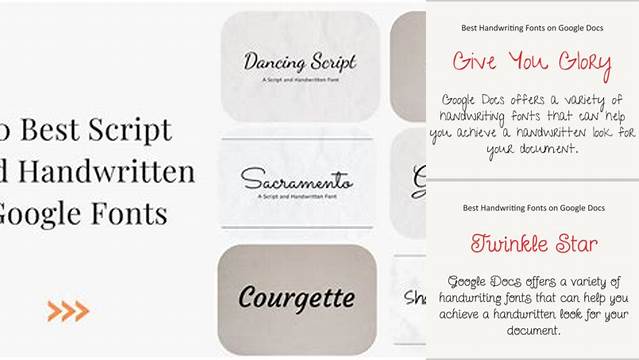
Best Handwriting Fonts For Google Docs: Ultimate Guide
Hey guys! Ever wanted to add a personal touch to your Google Docs? One of the easiest ways to do that is by using handwriting fonts. They can make your documents feel more authentic, creative, and less like they came straight out of a corporate office. But with so many options out there, how do you choose the best handwriting fonts on Google Docs? Don't worry; I’ve got you covered! In this guide, we’ll dive deep into the world of handwriting fonts, exploring everything from classic choices to modern, stylish options, and even how to install them if they're not already in Google Docs. Let’s get started!
1. Why Use Handwriting Fonts in Google Docs?
So, why bother with handwriting fonts anyway? Well, handwriting fonts can bring a unique flair to your documents. Imagine sending a thank-you note, a resume, or even a creative story typed in a font that mimics actual handwriting. It adds a personal touch that standard fonts like Arial or Times New Roman simply can't match. This is especially useful for invitations, cards, and other documents where you want to convey warmth and authenticity. Plus, using handwriting fonts can help your document stand out and grab the reader's attention, making it more memorable. For instance, if you’re a teacher, using a fun handwriting font on a worksheet can make the assignment feel less intimidating and more engaging for your students.
2. Top Classic Handwriting Fonts for Google Docs
When it comes to classic handwriting fonts, there are a few standouts that never go out of style. Think about fonts that mimic traditional cursive or penmanship. These fonts are generally easy to read and have a timeless appeal. Some popular options include “ школьные годы чудесные” and “Patrick Hand”. These fonts offer a balance between readability and a handwritten feel, making them perfect for professional documents where you still want to add a touch of personality. Classic handwriting fonts are also great for creating a nostalgic or vintage vibe in your projects. For example, if you’re designing a historical document or writing a story set in the past, using a classic handwriting font can enhance the overall effect and immerse your reader in the setting. Plus, these fonts often come with stylistic alternates and ligatures that add to their authenticity, making them look even more like real handwriting.
3. Modern and Stylish Handwriting Fonts
If you're looking for something a bit more contemporary, there are tons of modern and stylish handwriting fonts to choose from. These fonts often feature unique letterforms, playful swashes, and a more relaxed, casual feel. Options like “Coming Soon” and “Rock Salt” offer a fresh take on handwriting. These fonts are perfect for adding a creative touch to your blog posts, social media graphics, or marketing materials. Imagine designing an Instagram post with a catchy quote written in a trendy handwriting font. It’s sure to catch the eye and make your content more engaging. Modern handwriting fonts are also great for personal projects like journaling, scrapbooking, or creating personalized gifts. They allow you to express your individuality and add a unique touch to everything you create. Just remember to choose a font that’s still readable, even if it’s super stylish!
4. Best Cursive Handwriting Fonts for Formal Use
For more formal occasions, you might want to consider cursive handwriting fonts. These fonts emulate elegant, flowing script and can add a touch of sophistication to your documents. Fonts like “Great Vibes” or “Herr Von Muellerhoff” are excellent choices for wedding invitations, certificates, or formal letters. Using cursive handwriting fonts can convey a sense of tradition and elegance, making your document feel more special and refined. When selecting a cursive font, make sure it’s still legible and not overly ornate. You want to strike a balance between beauty and readability. Also, consider the overall tone of your document. A very formal cursive font might not be appropriate for a casual thank-you note, but it would be perfect for a formal invitation. Experiment with different options to find the perfect fit for your needs.
5. Fun and Playful Handwriting Fonts for Kids
If you’re working on projects for kids, you’ll want to use fun and playful handwriting fonts that capture their attention and spark their imagination. These fonts often feature whimsical letterforms, bright colors, and a generally lighthearted feel. Think about fonts that look like they were written by a child, with slightly uneven lines and quirky details. Options like “ школьные годы чудесные” or “Permanent Marker” can add a touch of fun to worksheets, storybooks, and party invitations. When choosing playful handwriting fonts, make sure they’re easy for kids to read. Avoid fonts that are too complicated or have too many decorative elements. The goal is to make the text accessible and engaging for young readers. Also, consider using these fonts in combination with colorful graphics and illustrations to create a visually appealing and stimulating learning environment.
7. Pairing Handwriting Fonts with Other Fonts
To create a visually appealing document, it’s important to pair your handwriting fonts with other fonts that complement them. A good rule of thumb is to use handwriting fonts for headings or short phrases, and then use a more readable font like Arial or Calibri for the body text. This helps to ensure that your document is both visually interesting and easy to read. When pairing fonts, consider the overall tone and style of your document. For example, if you’re using a modern handwriting font, you might want to pair it with a clean, sans-serif font. If you’re using a classic handwriting font, you might want to pair it with a traditional serif font. Experiment with different combinations to find what works best for you. There are also many online resources and font pairing tools that can help you find complementary fonts. Don’t be afraid to try new things and break the rules – the most important thing is to create a document that you’re happy with.
8. Using Handwriting Fonts for Resumes and Cover Letters
While handwriting fonts can add a personal touch to your documents, it’s important to use them judiciously when it comes to professional documents like resumes and cover letters. In general, it’s best to avoid using handwriting fonts for the main body of your resume or cover letter, as they can be difficult to read and may not convey a professional image. However, you might consider using a subtle handwriting font for your name or contact information to add a touch of personality. If you do choose to use a handwriting font, make sure it’s clean, legible, and not too distracting. You want to make a good impression on potential employers, so it’s important to choose a font that reflects your professionalism and attention to detail. When in doubt, it’s always best to stick with a classic, professional font like Arial, Calibri, or Times New Roman.
9. Creating Invitations with Handwriting Fonts
Handwriting fonts are perfect for creating invitations that feel personal and unique. Whether you’re planning a wedding, a birthday party, or a casual get-together, using a handwriting font can add a special touch to your invitations. When designing invitations, consider the overall theme and style of your event. A formal event might call for an elegant cursive font, while a casual event might be better suited to a fun and playful font. Don’t be afraid to experiment with different fonts and layouts to find the perfect combination. You can also use handwriting fonts in combination with graphics and illustrations to create a visually appealing invitation. Just remember to keep the text legible and easy to read, so your guests can easily find the important details like the date, time, and location of the event. There are many online resources and templates that can help you design beautiful invitations with handwriting fonts.
10. Designing Cards with Handwriting Fonts
Similar to invitations, handwriting fonts are also great for designing cards for all occasions. Whether you’re sending a thank-you note, a birthday card, or a holiday greeting, using a handwriting font can make your card feel more personal and heartfelt. When designing cards, consider the recipient and the message you want to convey. A heartfelt message might be best expressed with a warm and elegant cursive font, while a fun and playful message might be better suited to a whimsical font. You can also use handwriting fonts in combination with photos, illustrations, and other design elements to create a unique and memorable card. Just remember to keep the text legible and easy to read, so your recipient can easily understand your message. There are many online resources and templates that can help you design beautiful cards with handwriting fonts.
11. The Impact of Handwriting Fonts on Readability
Readability is a crucial factor to consider when choosing handwriting fonts, especially for longer documents or content intended for a wide audience. While handwriting fonts can add personality and flair, they may not always be as easy to read as standard fonts like Arial or Times New Roman. Some handwriting fonts feature intricate letterforms or unconventional spacing, which can make them challenging for some readers to decipher. To ensure readability, it’s best to use handwriting fonts sparingly, such as for headings or short phrases, and to pair them with a more legible font for the main body text. It’s also important to choose a handwriting font that is clear and well-defined, with consistent letterforms and adequate spacing. Before committing to a particular font, it’s a good idea to test it with a sample audience to get feedback on its readability. Ultimately, the goal is to strike a balance between aesthetics and accessibility, creating a document that is both visually appealing and easy to understand.
12. Free vs. Premium Handwriting Fonts
When searching for handwriting fonts for Google Docs, you’ll encounter both free and premium options. Free handwriting fonts can be a great way to add personality to your documents without breaking the bank. Many websites offer a wide selection of free fonts that you can download and install on your computer. However, it’s important to be aware of the potential limitations of free fonts. Some free fonts may have limited character sets, meaning they may not include all the letters, numbers, and symbols you need. Additionally, the quality of free fonts can vary widely, with some fonts being poorly designed or lacking essential features. Premium handwriting fonts, on the other hand, typically offer higher quality and more comprehensive features. Premium fonts are often designed by professional typographers and come with extensive character sets, stylistic alternates, and ligatures. While premium fonts may cost money, they can be a worthwhile investment if you plan to use handwriting fonts frequently or for professional projects. Ultimately, the choice between free and premium fonts depends on your budget and your specific needs.
13. How to Choose the Right Handwriting Font for Your Project
Selecting the right handwriting font for your project involves considering several factors to ensure the font aligns with your message and target audience. First, think about the overall tone and style of your project. Is it formal or casual, serious or playful? The handwriting font should reflect the mood you want to convey. For example, a formal wedding invitation might call for an elegant cursive font, while a children's book would benefit from a fun, whimsical font. Second, consider the readability of the font. While handwriting fonts can add personality, it's crucial to choose one that is easy to read, especially for longer documents or content intended for a wide audience. Avoid fonts with overly intricate letterforms or unconventional spacing. Third, think about the context in which the font will be used. Will it be used for headings, body text, or both? A bold handwriting font might work well for headings but be too distracting for body text. Finally, experiment with different fonts and combinations to find the perfect fit for your project. Don't be afraid to try new things and break the rules, but always prioritize readability and consistency.
14. Combining Handwriting Fonts with Images and Graphics
Combining handwriting fonts with images and graphics can create visually appealing and engaging documents. When incorporating images and graphics, it's important to choose elements that complement the handwriting font and enhance the overall message. For example, if you're using a vintage-style handwriting font, you might pair it with old-fashioned illustrations or sepia-toned photos. If you're using a modern handwriting font, you might opt for clean, minimalist graphics or vibrant, contemporary images. When arranging the text and images, pay attention to the layout and composition. Make sure the text is legible and doesn't compete with the images for attention. Use whitespace effectively to create a balanced and harmonious design. Experiment with different placements and sizes to find the most visually appealing arrangement. Remember to use high-quality images and graphics that are relevant to your message and target audience. By carefully combining handwriting fonts with images and graphics, you can create documents that are both visually stunning and highly effective.
15. The Psychology of Handwriting Fonts
Handwriting fonts can evoke a range of emotions and associations, influencing how your message is perceived. Understanding the psychology of handwriting fonts can help you choose the right font to connect with your audience and achieve your communication goals. In general, handwriting fonts are associated with warmth, authenticity, and creativity. They can make your documents feel more personal and approachable, creating a sense of connection with the reader. However, different styles of handwriting fonts can evoke different emotions. For example, elegant cursive fonts can convey sophistication and refinement, while playful, whimsical fonts can evoke joy and excitement. The choice of handwriting font can also influence perceptions of your brand or organization. A professional, well-designed handwriting font can enhance your brand image, while a poorly chosen font can detract from it. When selecting a handwriting font, consider the emotions you want to evoke and the message you want to convey. By understanding the psychology of handwriting fonts, you can create documents that resonate with your audience and achieve your desired impact.
16. Handwriting Fonts for Branding
Using handwriting fonts in your branding can add a unique and personal touch to your brand identity. A well-chosen handwriting font can help your brand stand out from the competition and create a memorable impression on your target audience. When selecting a handwriting font for your branding, it's important to consider your brand's personality and values. Is your brand playful and whimsical, or sophisticated and elegant? The handwriting font should reflect the essence of your brand. You'll also want to consider the readability and versatility of the font. Will it work well across different media, such as your website, social media profiles, and marketing materials? Will it be legible in both large and small sizes? It's often a good idea to use a handwriting font in combination with a more traditional font for your logo and other branding elements. This can help to balance the personal touch of the handwriting font with the professionalism and readability of a more standard font. By carefully selecting and using handwriting fonts in your branding, you can create a unique and memorable brand identity that resonates with your target audience.
17. How to Ensure Your Handwriting Font is Legible
Ensuring your handwriting font is legible is crucial for effective communication. While handwriting fonts can add a personal touch, they can also be more difficult to read than standard fonts if not chosen carefully. Here are some tips to ensure your handwriting font is legible: Choose a font with clear and well-defined letterforms. Avoid fonts with overly intricate or stylized designs that can make the letters difficult to distinguish. Consider the spacing between letters and words. Adequate spacing can improve readability, while cramped spacing can make the text look cluttered and difficult to follow. Use a large enough font size. Smaller font sizes can make handwriting fonts particularly challenging to read, so it's best to use a larger font size than you would with a standard font. Pair your handwriting font with a legible font for the body text. This can help to improve the overall readability of your document, especially if the handwriting font is used for headings or short phrases. Test your font with a sample audience. Ask people to read a sample of text in the handwriting font and provide feedback on its readability. By following these tips, you can ensure that your handwriting font is both stylish and easy to read.
18. The Ethics of Using Free Handwriting Fonts
When using free handwriting fonts, it's important to consider the ethical implications of your font choice. While free fonts can be a great resource for adding personality to your documents, it's crucial to respect the rights of the font creators and adhere to the terms of the font licenses. Before using a free handwriting font, carefully review the font license to understand how you're allowed to use the font. Some free fonts may be free for personal use but require a commercial license for business or professional use. Other free fonts may have restrictions on how you can modify or distribute the font. It's also important to be aware of the potential risks associated with downloading free fonts from unknown sources. Some websites may offer free fonts that contain malware or viruses, which can harm your computer or compromise your data. To protect yourself, only download free fonts from reputable websites and scan the font files with antivirus software before installing them. By being mindful of the ethical considerations and taking appropriate precautions, you can enjoy the benefits of free handwriting fonts without infringing on the rights of the font creators or compromising your security.
19. Handwriting Fonts for Social Media Graphics
Handwriting fonts can be a fantastic way to add personality and flair to your social media graphics. Whether you're creating posts for Instagram, Facebook, or Twitter, using a handwriting font can help your content stand out and grab the attention of your followers. When choosing a handwriting font for your social media graphics, consider the overall tone and style of your brand. Is your brand playful and approachable, or sophisticated and professional? The handwriting font should reflect the essence of your brand. You'll also want to consider the readability of the font. Social media graphics are often viewed on small screens, so it's important to choose a handwriting font that is easy to read at smaller sizes. Use handwriting fonts sparingly, such as for headings, captions, or short quotes. Avoid using handwriting fonts for the main body of your text, as they can be difficult to read on social media. Experiment with different font colors, sizes, and placements to create visually appealing graphics that capture the attention of your followers. By using handwriting fonts strategically in your social media graphics, you can create content that is both engaging and on-brand.
20. Creating a Signature with a Handwriting Font
Creating a signature with a handwriting font is a great way to add a personal and professional touch to your emails, documents, and other communications. A well-designed signature can help you establish your brand identity and make a lasting impression on your recipients. When choosing a handwriting font for your signature, consider your personal style and the overall tone of your communications. Do you want your signature to be elegant and sophisticated, or casual and approachable? The handwriting font should reflect your personality and the message you want to convey. You'll also want to consider the readability of the font. Your signature should be easy to read, even at smaller sizes. Avoid fonts with overly intricate or stylized designs that can make the signature difficult to decipher. Keep your signature concise and professional. Include your name, title, and contact information, but avoid adding unnecessary details or graphics. Use a consistent font color and size throughout your signature to create a polished and professional look. By creating a signature with a handwriting font, you can add a personal touch to your communications and make a lasting impression on your recipients.
21. The Future of Handwriting Fonts in Digital Design
The future of handwriting fonts in digital design looks bright, with ongoing innovations and evolving trends shaping their role in visual communication. As technology advances, we can expect to see even more realistic and expressive handwriting fonts that capture the nuances of human handwriting. Designers are also exploring new ways to incorporate handwriting fonts into interactive and dynamic designs, creating engaging and personalized experiences for users. For example, we may see handwriting fonts used in virtual reality and augmented reality applications, allowing users to interact with digital content in a more natural and intuitive way. Another trend is the increasing use of handwriting fonts in branding and marketing, as companies seek to create a more authentic and human connection with their customers. We can also expect to see more tools and resources that make it easier for designers to create and customize handwriting fonts, empowering them to express their creativity and individuality. As handwriting fonts continue to evolve and adapt to the changing landscape of digital design, they will remain a valuable tool for creating compelling and memorable visual experiences.
22. Common Mistakes to Avoid When Using Handwriting Fonts
Using handwriting fonts effectively requires careful consideration and attention to detail. Here are some common mistakes to avoid when using handwriting fonts in your designs: Overusing handwriting fonts. While handwriting fonts can add personality and flair, using them excessively can make your design look cluttered and unprofessional. Use handwriting fonts sparingly, such as for headings or short phrases. Choosing a handwriting font that is difficult to read. Readability is crucial for effective communication, so it's important to choose a handwriting font that is easy to decipher. Avoid fonts with overly intricate or stylized designs that can make the text difficult to follow. Using a handwriting font that doesn't match the tone of your design. The handwriting font should reflect the overall mood and style of your project. Using too many different fonts in one design. Using too many fonts can create a chaotic and unprofessional look. It's best to stick to a limited palette of fonts that complement each other. Ignoring the font license. Before using a handwriting font, make sure you understand the terms of the font license. Some fonts may be free for personal use but require a commercial license for business use. By avoiding these common mistakes, you can use handwriting fonts effectively to enhance your designs and communicate your message with clarity and impact.
23. Accessibility Considerations for Handwriting Fonts
When using handwriting fonts, it's important to consider accessibility to ensure that your content is usable by people with disabilities. While handwriting fonts can add a unique touch to your design, they may not be accessible to everyone. Here are some accessibility considerations to keep in mind: Use handwriting fonts sparingly. Handwriting fonts can be difficult to read for people with visual impairments or learning disabilities, so it's best to use them sparingly. Provide alternative text for images containing handwriting fonts. Alternative text allows screen readers to describe the image to visually impaired users. Ensure sufficient contrast between the text and background. Low contrast can make it difficult for people with visual impairments to read the text. Use a large enough font size. Smaller font sizes can make handwriting fonts particularly challenging to read. Provide a clear and simple design. Avoid cluttered layouts or distracting graphics that can make it difficult for people with cognitive disabilities to focus on the content. Test your design with accessibility tools. There are many accessibility tools available that can help you identify and fix accessibility issues in your design. By considering accessibility when using handwriting fonts, you can create content that is inclusive and usable by everyone.
24. Finding Inspiration for Using Handwriting Fonts
Finding inspiration for using handwriting fonts can spark creativity and help you discover new and innovative ways to incorporate them into your designs. Here are some sources of inspiration to explore: Browse online design galleries and portfolios. Websites like Behance, Dribbble, and Awwwards showcase a wide range of design projects that use handwriting fonts in creative ways. Follow designers and typographers on social media. Platforms like Instagram and Twitter are great for discovering new handwriting fonts and seeing how designers are using them in their work. Look at vintage advertisements and signage. Vintage designs often feature handwriting fonts and hand-lettered elements that can provide inspiration for your own projects. Visit museums and art galleries. Museums and art galleries often showcase examples of calligraphy, typography, and hand-lettering that can inspire your use of handwriting fonts. Experiment with different font pairings and design styles. Try combining handwriting fonts with different fonts, colors, and layouts to create unique and visually appealing designs. By exploring these sources of inspiration, you can discover new and exciting ways to use handwriting fonts in your designs and create content that is both visually stunning and effective.
25. How to Create Your Own Handwriting Font
Creating your own handwriting font can be a rewarding and creative process that allows you to express your unique personality and style. Here are the basic steps involved in creating your own handwriting font: Gather your materials. You'll need a pen or marker, paper, and a scanner or digital camera. Create a character set. Write out each letter of the alphabet, both uppercase and lowercase, as well as numbers, punctuation marks, and any other symbols you want to include in your font. Scan or photograph your character set. Ensure that the images are clear and well-lit. Use font creation software. There are many font creation programs available, both free and paid, that can help you convert your images into a font file. Trace and digitize your characters. Use the font creation software to trace and digitize your handwritten characters. Adjust the spacing and kerning. Fine-tune the spacing between letters and words to ensure that your font is legible and visually appealing. Test your font. Test your font in different applications and with different font sizes to ensure that it works properly. By following these steps, you can create your own handwriting font that reflects your unique style and personality.
26. The Best Software for Working with Handwriting Fonts
When working with handwriting fonts, having the right software can make a significant difference in your design process. Here are some of the best software options for working with handwriting fonts: Adobe Photoshop. Photoshop is a powerful image editing software that allows you to manipulate and enhance handwriting fonts in your designs. Adobe Illustrator. Illustrator is a vector graphics editor that is ideal for creating logos, illustrations, and other graphics that incorporate handwriting fonts. Canva. Canva is a user-friendly design platform that offers a wide range of templates and tools for creating social media graphics, presentations, and other visual content with handwriting fonts. Procreate. Procreate is a digital painting app for iPad that allows you to create custom lettering and handwriting fonts using Apple Pencil. FontLab Studio. FontLab Studio is a professional font editor that provides advanced tools for creating and modifying handwriting fonts. By choosing the right software for your needs, you can streamline your design workflow and create stunning visuals with handwriting fonts.
27. Using Handwriting Fonts for Personal Projects
Handwriting fonts can add a personal and creative touch to a wide range of personal projects. Whether you're scrapbooking, journaling, or creating handmade gifts, using a handwriting font can make your projects more meaningful and memorable. Here are some ideas for using handwriting fonts in your personal projects: Create personalized cards and invitations. Use a handwriting font to add a personal touch to birthday cards, thank-you notes, or party invitations. Design custom stationery. Create your own personalized stationery with a handwriting font for your name and address. Make unique scrapbook layouts. Use handwriting fonts to add captions, titles, and journaling to your scrapbook pages. Create handmade gifts. Personalize gifts with a handwriting font to make them extra special. Design custom labels and stickers. Use handwriting fonts to create labels for jars, bottles, or handmade products. By using handwriting fonts in your personal projects, you can add a touch of your own personality and creativity to everything you create.
28. Troubleshooting Common Handwriting Font Issues
Even with the best handwriting fonts and software, you may encounter some common issues. Here's how to troubleshoot them: Font not displaying correctly: Ensure the font is properly installed and activated on your system. Clear your font cache if necessary. Kerning or spacing problems: Adjust the kerning or spacing settings in your design software to improve the visual appearance of the font. Font appears pixelated or blurry: Use a higher resolution or vector format for the font to ensure crisp and clear rendering. Font not working in a specific application: Check if the application supports the font format and encoding. Try a different font format if necessary. Font displaying incorrectly on a website: Ensure the font is properly embedded in the website's CSS and that the font files are accessible. By following these troubleshooting steps, you can resolve common handwriting font issues and ensure that your designs look their best.
29. The Impact of Technology on Handwriting Styles
Technology has significantly influenced handwriting styles, with digital tools and platforms shaping how we create and interact with written content. While traditional handwriting emphasized consistency and legibility, technology has fostered greater experimentation and individuality in handwriting styles. Digital devices like tablets and styluses allow for more fluid and expressive handwriting, enabling users to create unique and personalized fonts. Social media platforms have also played a role, encouraging the use of handwriting fonts in visual content to convey authenticity and personality. Furthermore, technology has made it easier to digitize and share handwriting, blurring the lines between analog and digital forms of expression. As technology continues to evolve, we can expect to see even more innovative and dynamic handwriting styles emerge, reflecting the changing landscape of communication and design.
30. Resources for Learning More About Typography and Handwriting Fonts
To deepen your understanding of typography and handwriting fonts, consider exploring these resources: Books: "The Elements of Typographic Style" by Robert Bringhurst, "Thinking with Type" by Ellen Lupton. Online Courses: Coursera, Skillshare, Udemy offer courses on typography, font design, and calligraphy. Websites: Typewolf, I Love Typography, Fonts.com provide articles, tutorials, and inspiration. Blogs: Read design and typography blogs for industry news, trends, and best practices. Conferences and Workshops: Attend typography conferences or workshops to learn from experts and network with other enthusiasts. By utilizing these resources, you can expand your knowledge of typography and handwriting fonts and enhance your design skills.